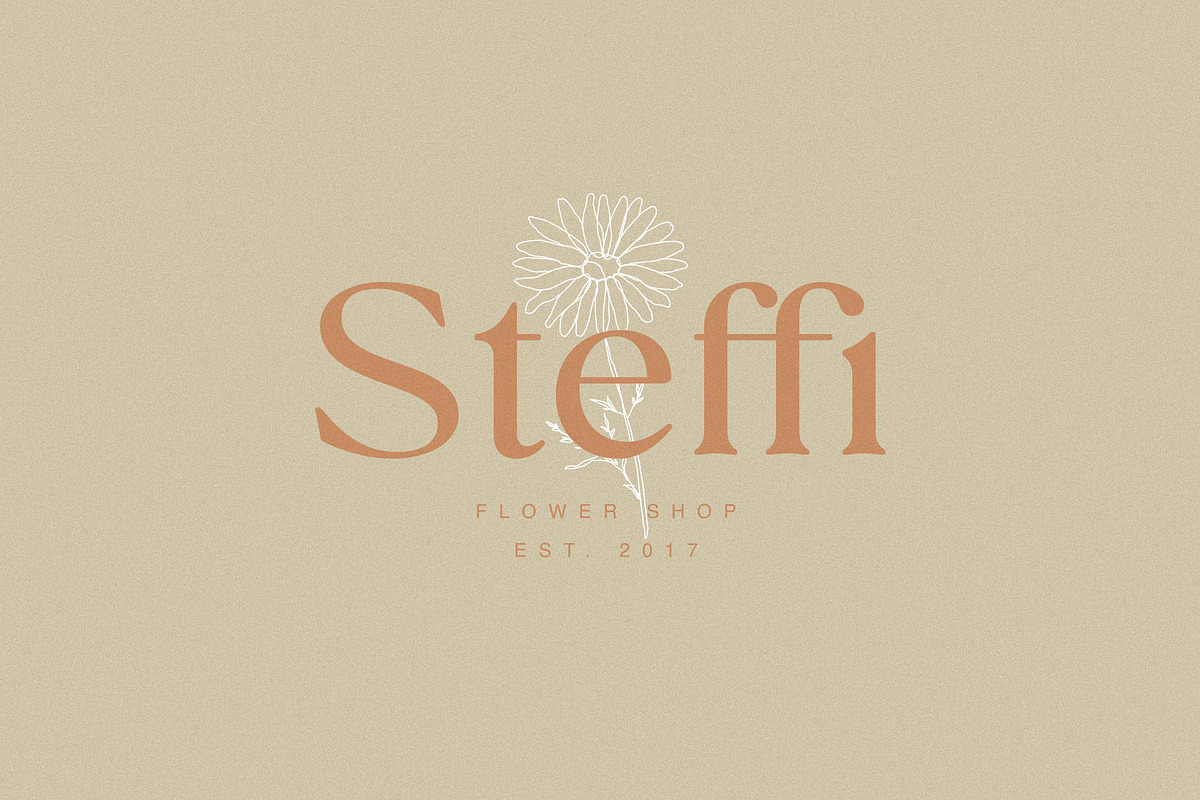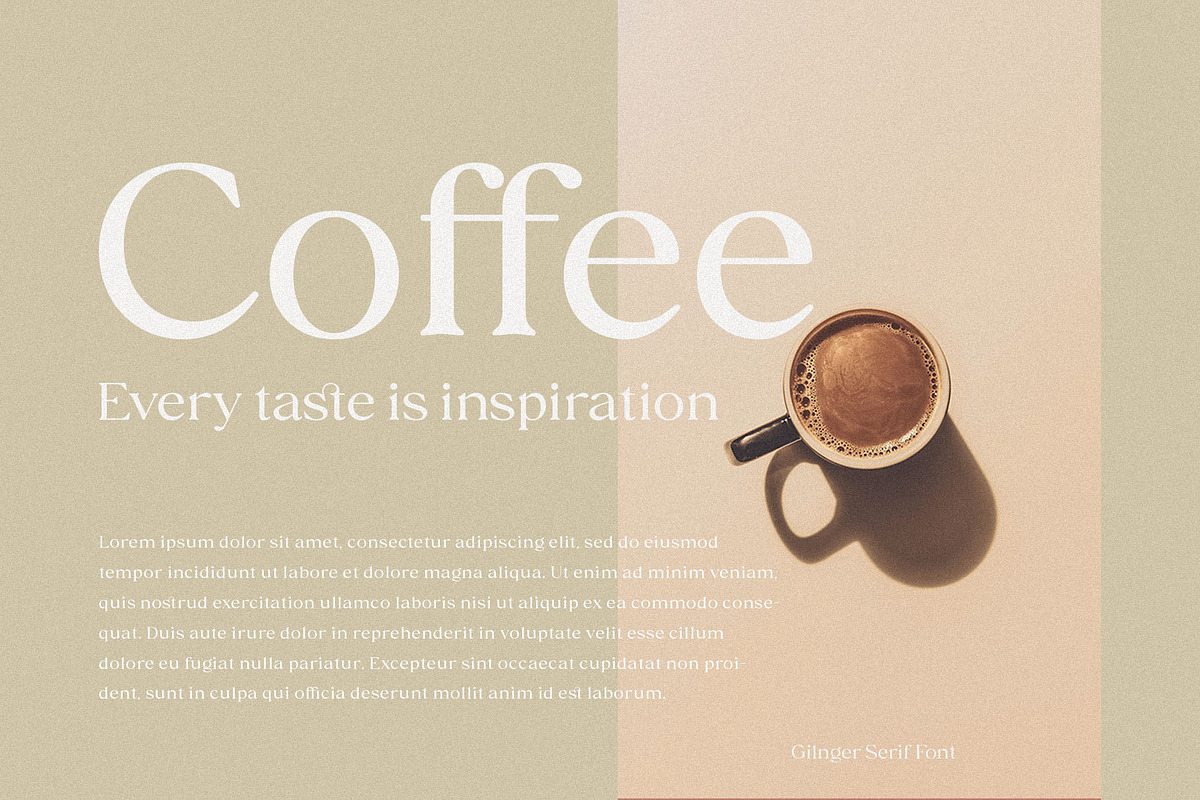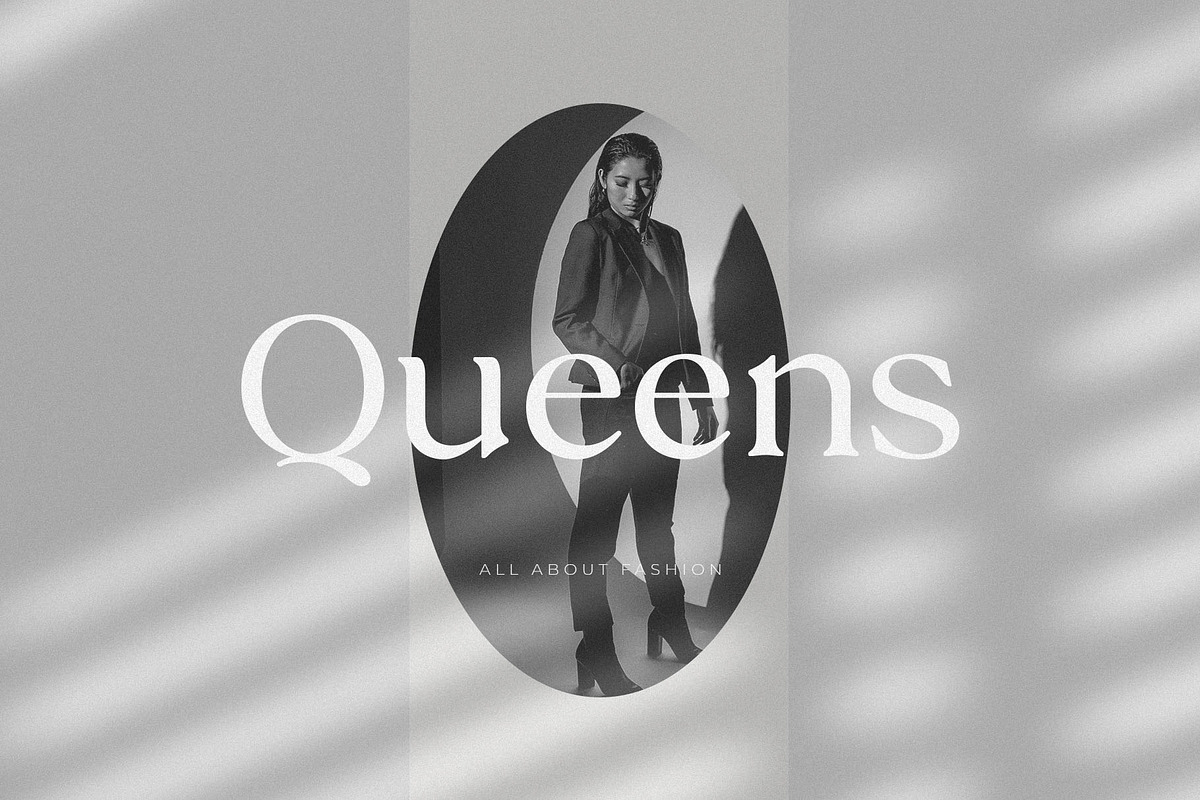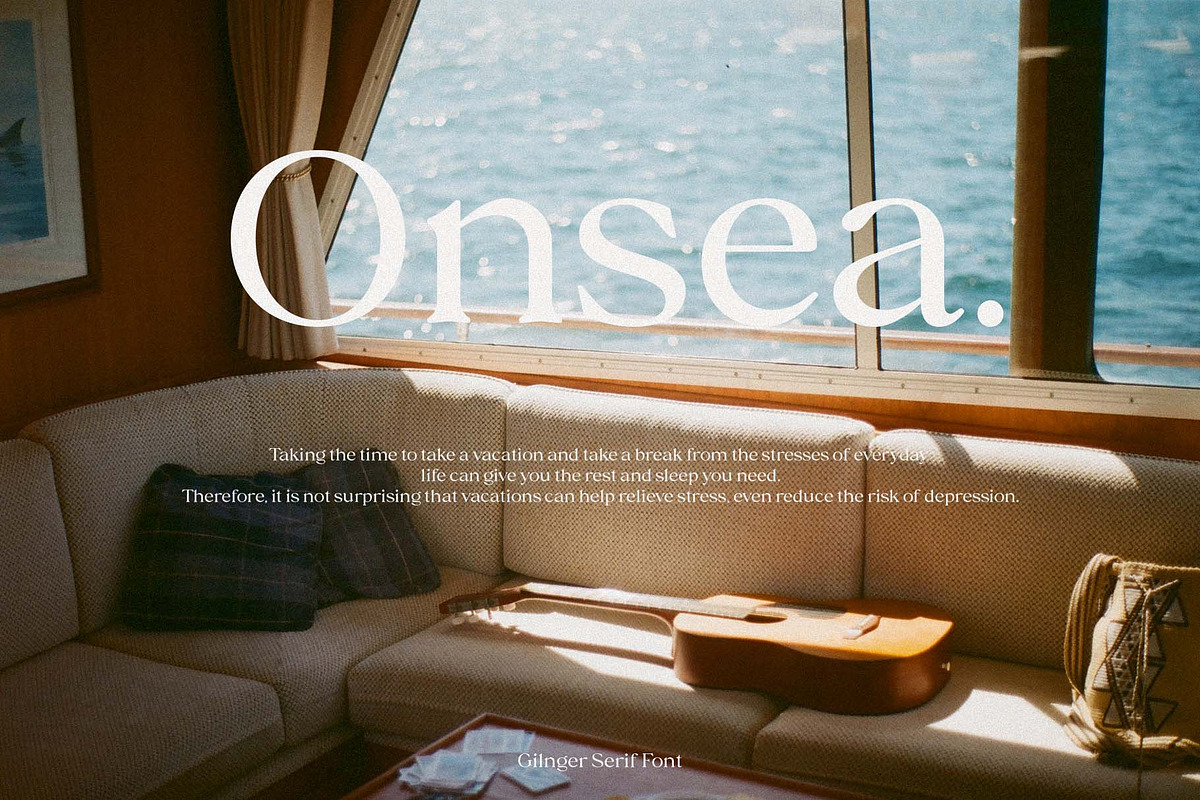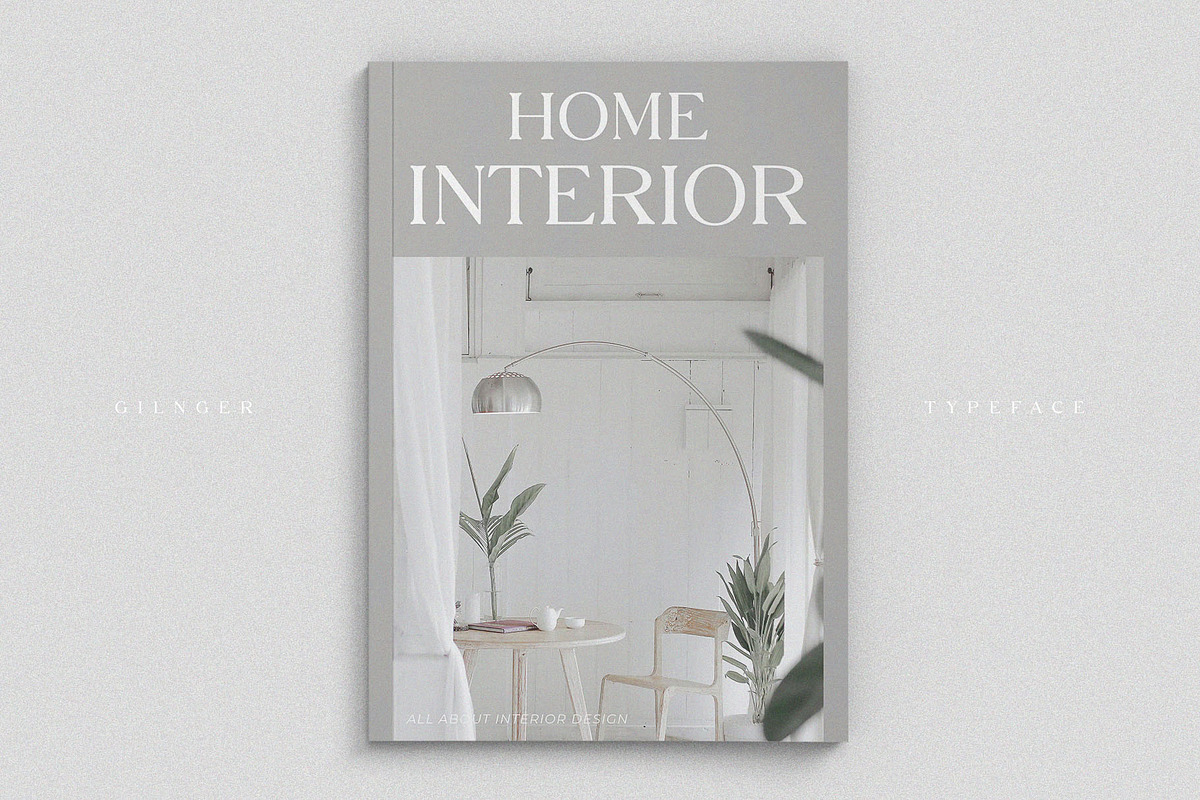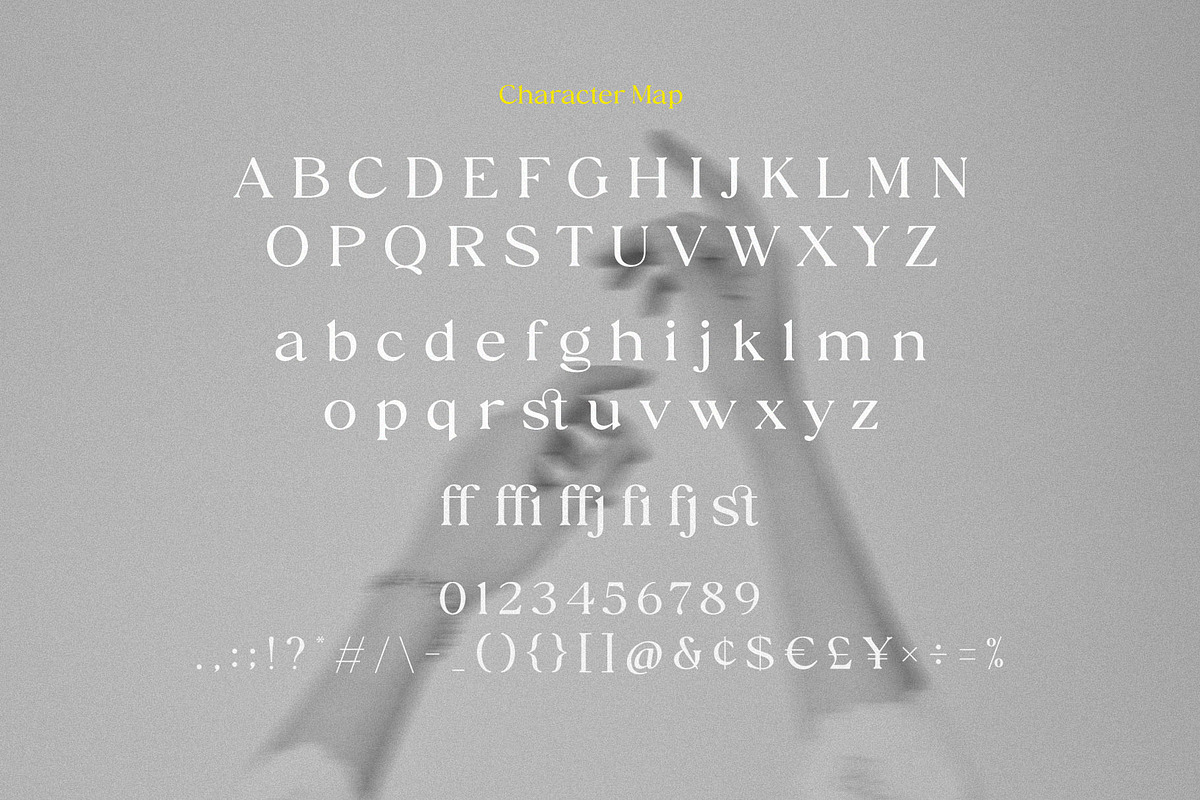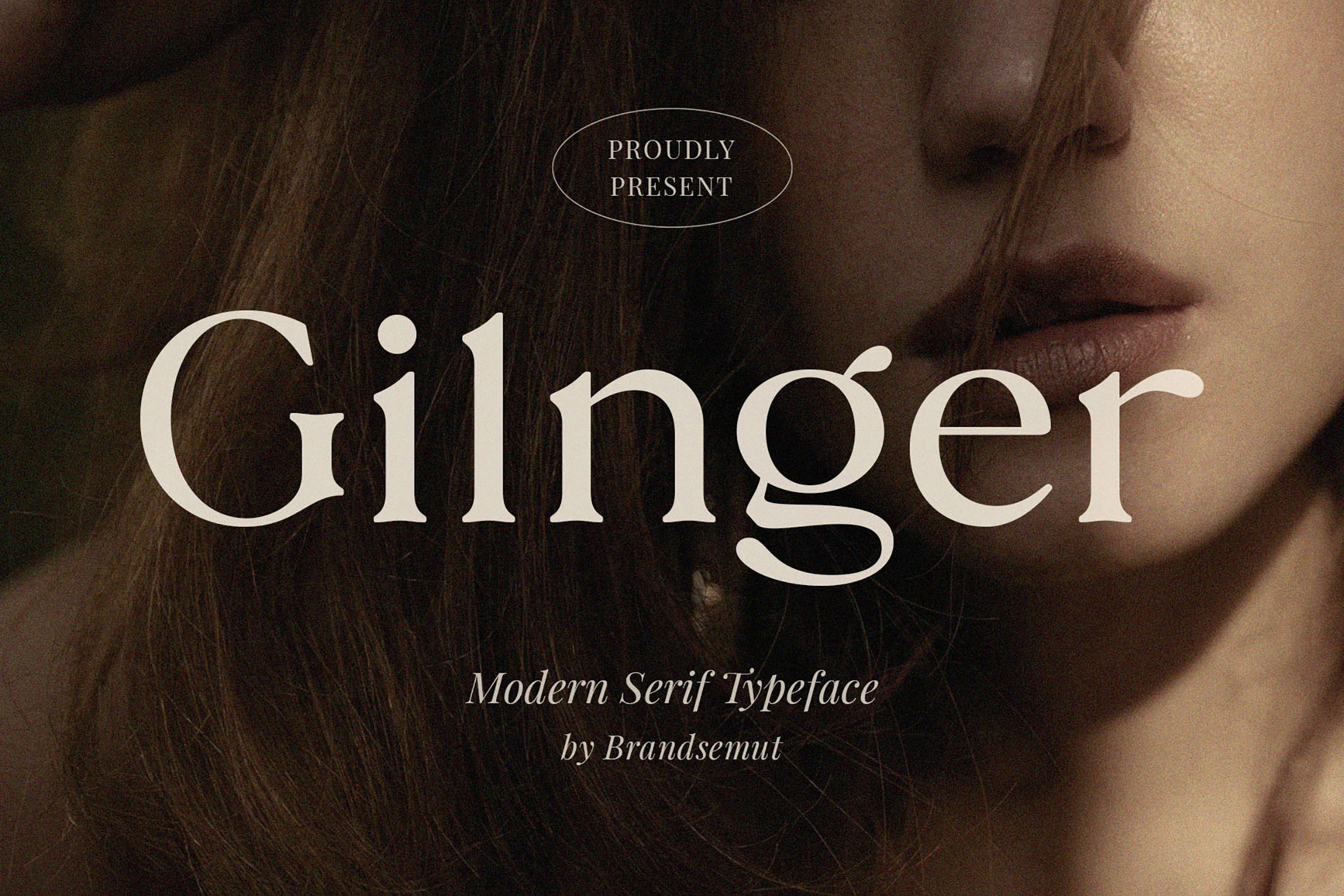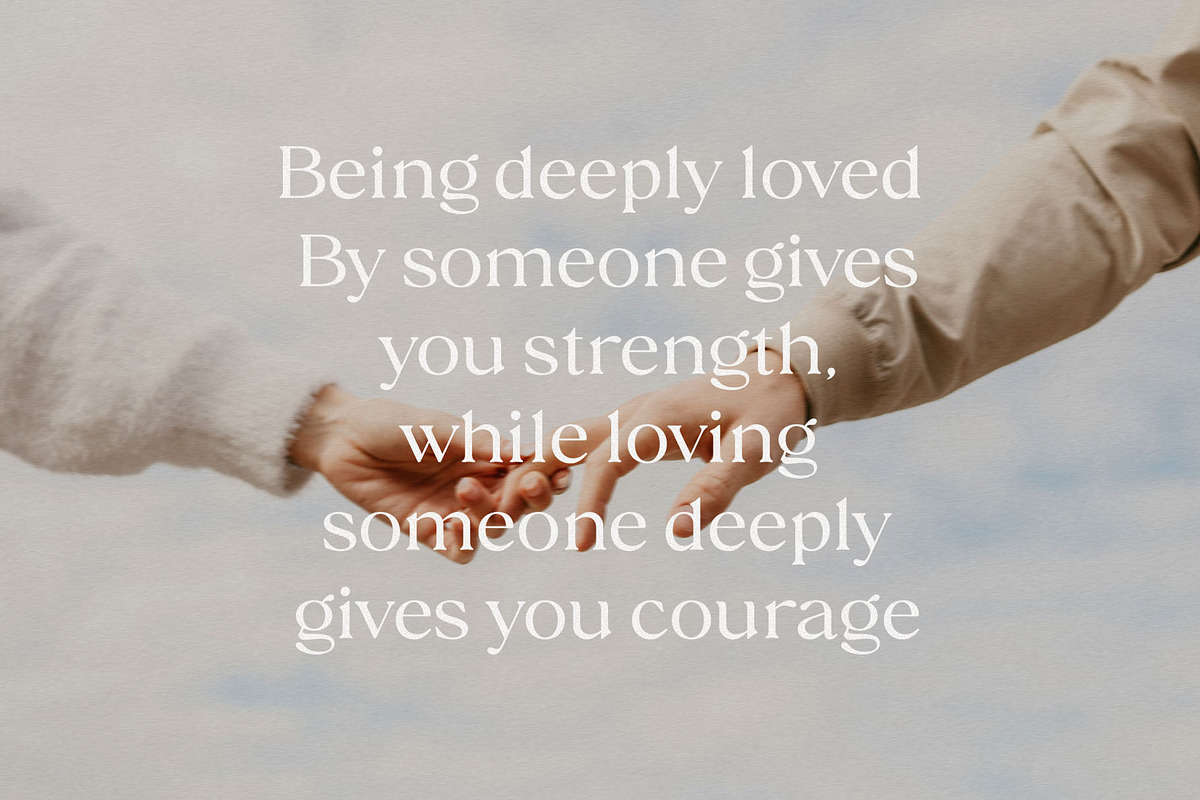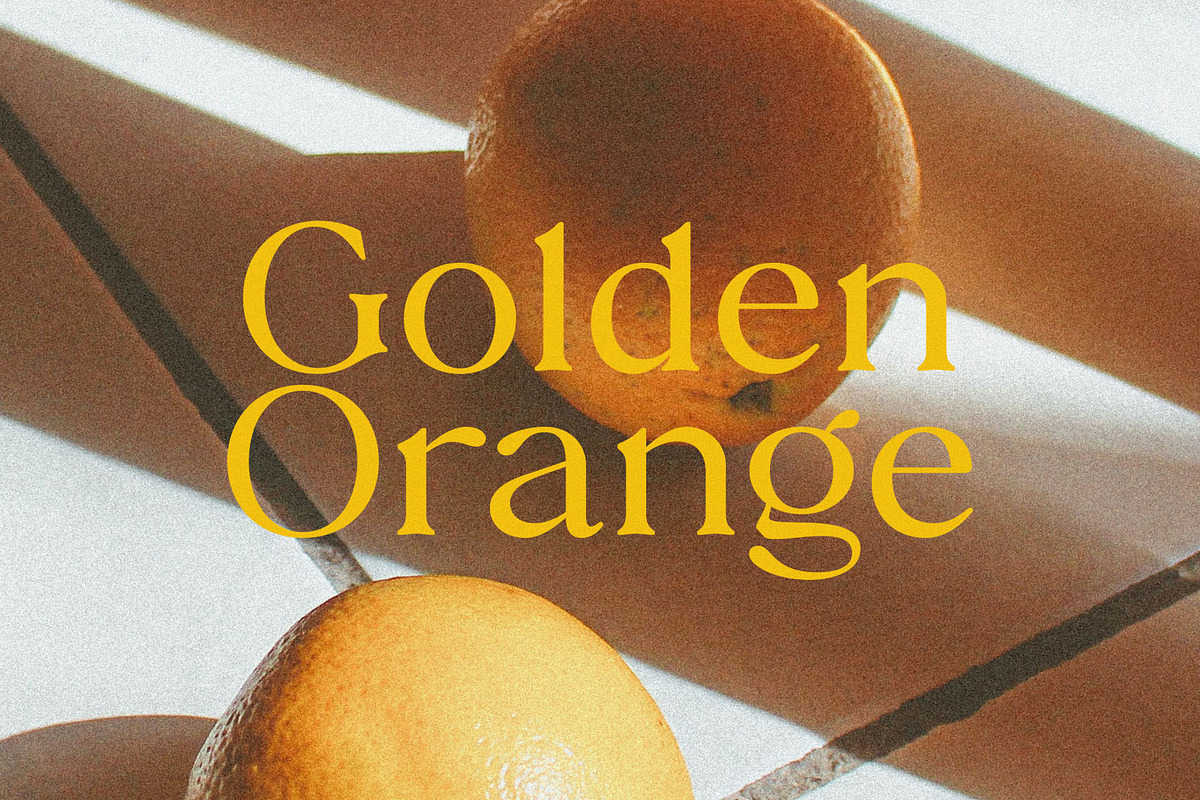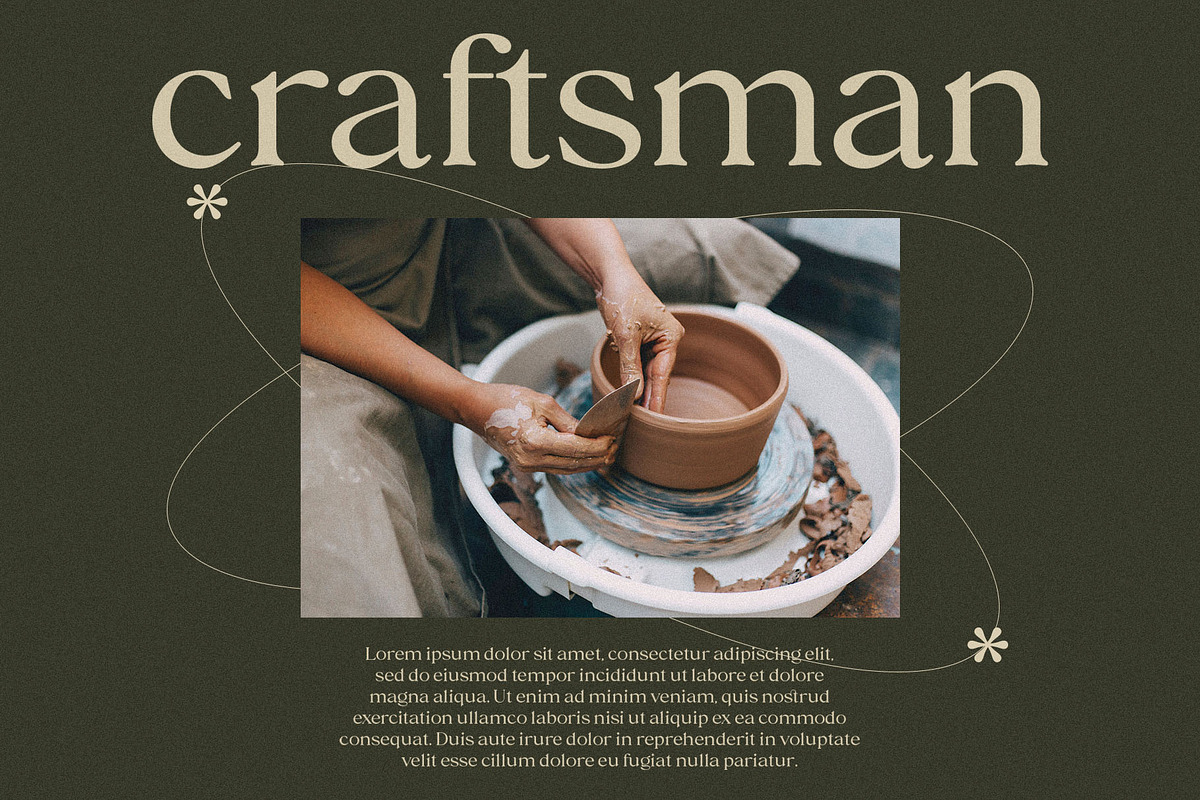
Gilnger – Modern Serif Typeface
Introducing Gilnger Modern Serif Typeface. Gilnger is a modern and stylish typeface, best used as a display for headings, logos, branding, magazines, product packaging and invitations. Gilnger come with clean lines and smooth curves give any project an extra touch of class.